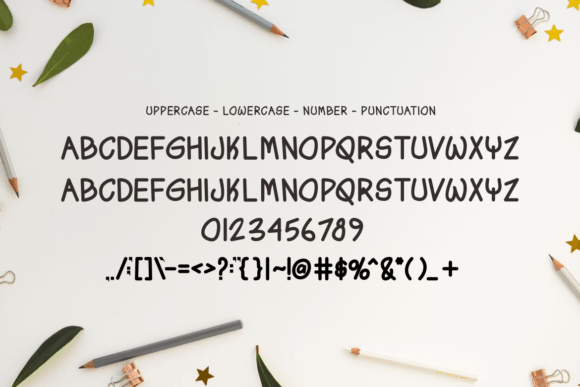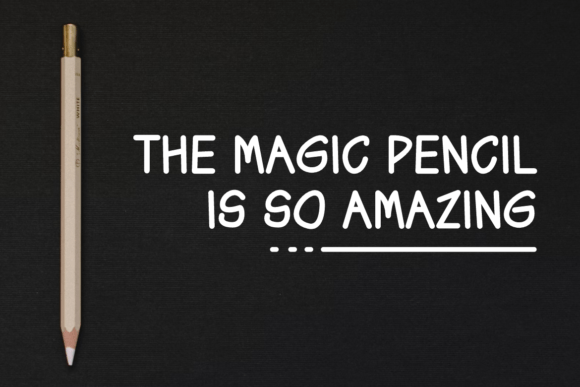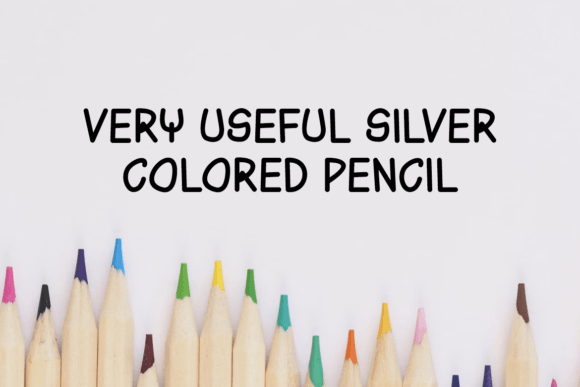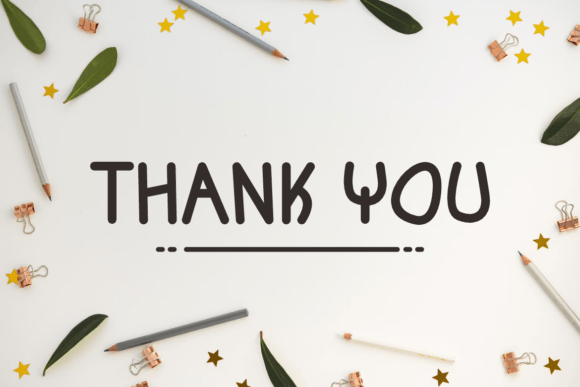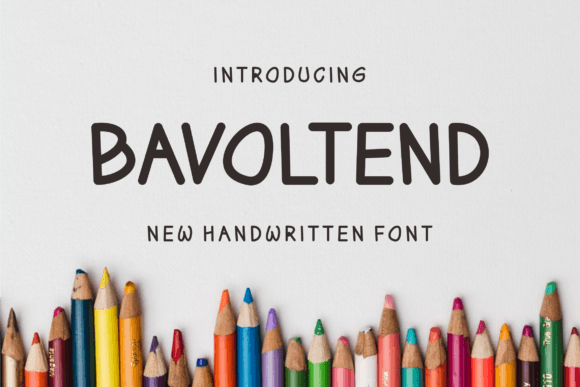
Introducing Bavoltend Font: The Ultimate Modern Handwritten Font for Designers and Crafters
Are you tired of using the same old fonts for your branding projects? Look no further! We’re excited to introduce Bavoltend Font, a bold and authentic handwritten font that’s perfect for designers and crafters alike. In this article, we’ll dive into the features and benefits of Bavoltend Font, and explore how it can elevate your creative projects to the next level.
What is Bavoltend Font?
Bavoltend Font is a modern handwritten font that’s designed to make a statement. Its bold and authentic style makes it perfect for a wide range of applications, from logos and t-shirt printing to creative products and more. Whether you’re a designer, crafter, or entrepreneur, Bavoltend Font is the perfect addition to your font collection.
Key Features of Bavoltend Font
- Bold and Authentic Style: Bavoltend Font boasts a unique and authentic handwritten style that’s sure to grab attention.
- Versatile: This font is perfect for a variety of contexts, including logos, t-shirt printing, creative products, and more.
- Easily Readable: Despite its bold style, Bavoltend Font is easily readable, making it perfect for body text and headlines.
- High-Quality: Our font is designed to deliver high-quality results, ensuring that your projects look professional and polished.
Benefits of Using Bavoltend Font
So, why choose Bavoltend Font for your next project? Here are just a few benefits of using this amazing font:
- Stand Out from the Crowd: With Bavoltend Font, you can create unique and eye-catching designs that set you apart from the competition.
- Save Time: Our font is designed to be easily readable and versatile, saving you time and effort in the design process.
- Enhance Your Brand: Bavoltend Font can help you create a consistent brand identity that reflects your values and personality.
- Perfect for Crafters: Whether you’re creating handmade products or selling digital goods, Bavoltend Font is perfect for adding a personal touch to your designs.
- Logos and Branding: Use Bavoltend Font to create a bold and memorable logo that reflects your brand’s personality.
- T-Shirt Printing: Create eye-catching t-shirt designs that stand out from the crowd.
- Creative Products: Add a personal touch to your handmade products, such as stickers, washi tape, and more.
- Digital Products: Use Bavoltend Font to create stunning digital products, such as printable art, planners, and more.
In conclusion, Bavoltend Font is the perfect addition to any designer’s or crafter’s font collection. Its bold and authentic handwritten style makes it perfect for a wide range of applications, from logos and t-shirt printing to creative products and more. With its versatility, readability, and high-quality design, Bavoltend Font is sure to elevate your creative projects to the next level. So why wait? Download Bavoltend Font today and start creating stunning designs that stand out from the crowd!